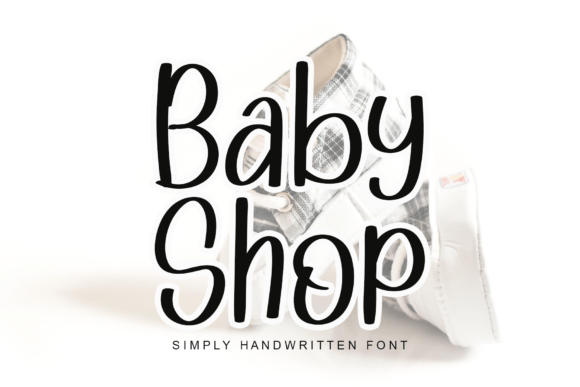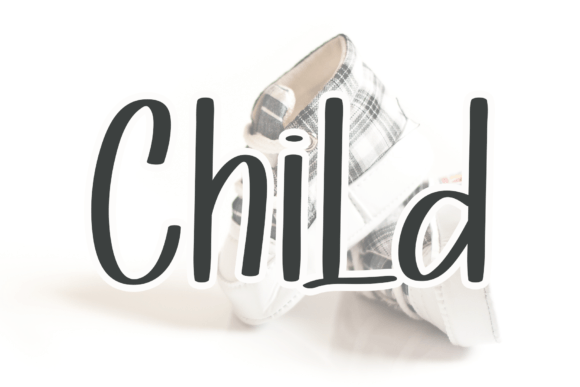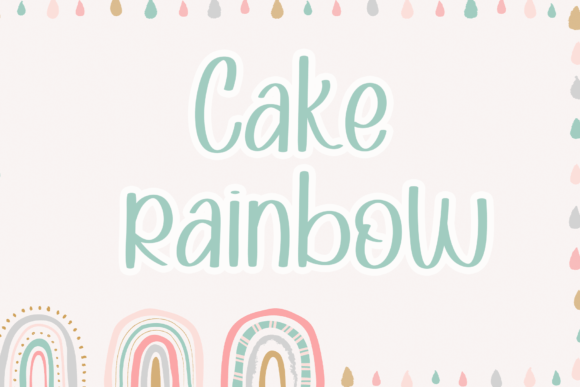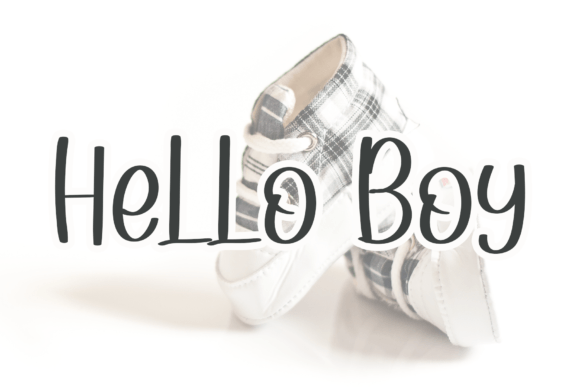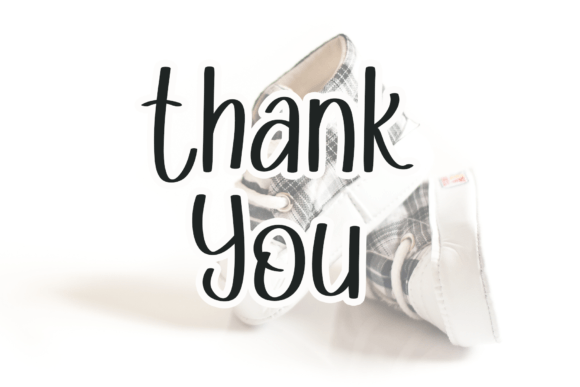
Baby Shop Font
“Baby Shop is a sweet and beautiful handwritten font designed to add a touch of luxury to your creative projects. With characters that dance along the baseline, this font brings a playful and elegant spark to any design project you wish to create!
The charm of Baby Shop lies in its sweet and handwritten style, where each letter is crafted with attention to detail. This font becomes a delightful choice for designers seeking a font that brings a luxurious and playful vibe to their projects, especially those related to baby products.
Whether you’re working on baby shower invitations, labels, posters, or any design that requires a touch of elegance, Baby Shop stands out as a font that enhances the overall aesthetic. Its playful characters add a unique and eye-catching quality to your text.
Imagine Baby Shop elevating your projects, adding a sweet and beautiful handwritten touch that sets a luxurious tone. Its charming style becomes the defining element that sets your designs apart, creating a visual experience that resonates with sophistication and joy.
As you explore the nuances of Baby Shop, you’ll discover its potential to transform ordinary projects into visually delightful expressions. Let it be the font that brings a touch of luxury to your creative vision, making your designs stand out with a beautiful handwritten aesthetic. With Baby Shop, every stroke becomes a brushstroke of elegance, making it a delightful asset for designers seeking a playful and stylish font.”